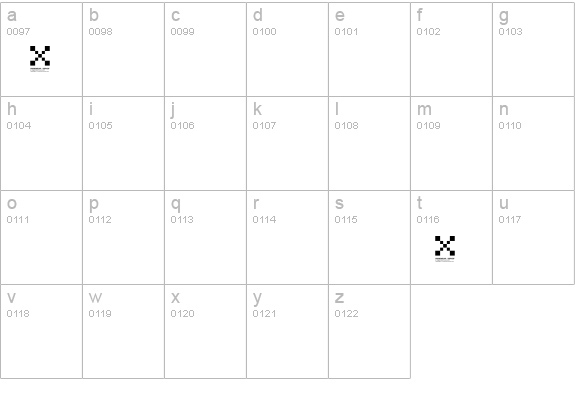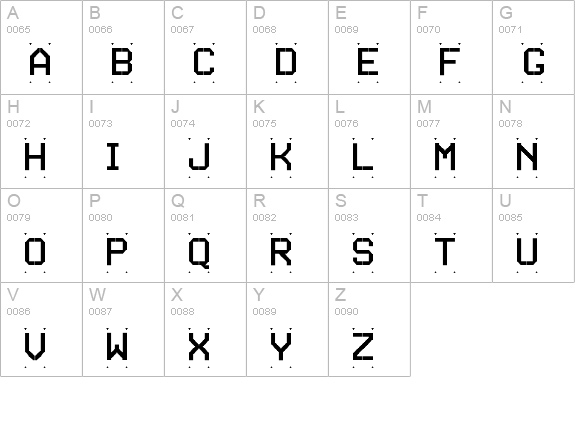
TSERIES D Font Details
Introducing TSERIES D Font, a stunning typeface that exudes elegance and sophistication. With its sleek and modern design, this font is perfect for various creative projects, from logos and branding to invitations and websites. TSERIES D Font is sure to catch the eye with its unique letterforms and impeccable attention to detail. Whether used in headlines or body text, this font effortlessly commands attention and adds a touch of refinement to any design. One of the most remarkable features of TSERIES D Font is that it is available for free download at FontsMarket.com. Yes, you read that right! This premium font can be yours without spending a dime. The generosity of TSERIES D Font's creators in offering it for free allows designers and enthusiasts alike to access and utilize this exceptional typeface, without any limitations. Downloading TSERIES D Font from FontsMarket.com is incredibly simple and hassle-free. With just a few clicks, you can have this versatile font at your fingertips, ready to elevate your design projects to new heights. Its compatibility with various design software ensures that you can seamlessly integrate TSERIES D Font into your workflow, allowing you to explore its full potential. The carefully crafted characters of TSERIES D Font are not only aesthetically pleasing but also highly legible, making it suitable for both print and digital applications. Its versatility lends itself to a wide range of design styles, from minimalist to bold and experimental. Whatever your creative vision may be, TSERIES D Font is here to enhance it. So, why wait? Embrace the opportunity to enhance your design toolkit with TSERIES D Font, a premium typeface that is freely available to download at FontsMarket.com. Don't miss out on this incredible offer and take advantage of the limitless possibilities that TSERIES D Font offers for your next design project.